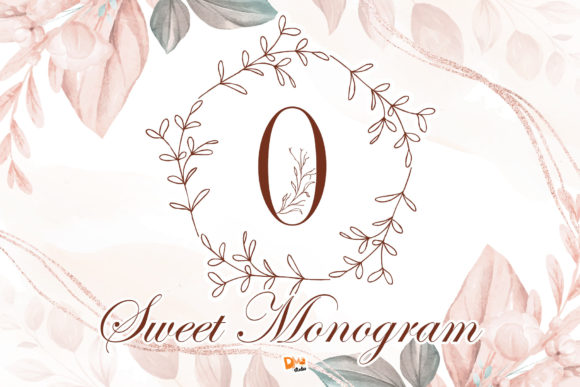
Craving a touch of elegance and charm in your designs? Look no further than the Sweet Monogram Wreath Font, a captivating decorative font that exudes a timeless beauty reminiscent of enchanting fairy tales.
Picture this: Your wedding invitations adorned with the Sweet Monogram Wreath Font, each letter gracefully entwined with delicate wreaths, reminiscent of a secret garden waiting to be explored. Your thank-you cards will blossom with gratitude, each word elegantly etched in this enchanting font, leaving a lasting impression on the recipient.
The Sweet Monogram Wreath Font isn't just for weddings; it's a versatile charmer, perfect for adding a touch of whimsy to quotes, greeting cards, and even logos. Imagine your business cards blooming with personality, making an unforgettable statement that sets you apart from the ordinary.
This font is more than just a collection of letters; it's an artistic expression that transforms your designs into captivating works of art. Its intricate details and flowing curves will captivate your audience, drawing them into a world of wonder and imagination.
With the Sweet Monogram Wreath Font, your designs will blossom with a unique touch that sets them apart from the mundane. Let your creativity flourish as you explore the endless possibilities this font offers.
Don't miss out on the opportunity to add a touch of magic to your designs. Embrace the Sweet Monogram Wreath Font and watch your creations come alive with an enchanting charm that will leave your audience spellbound.